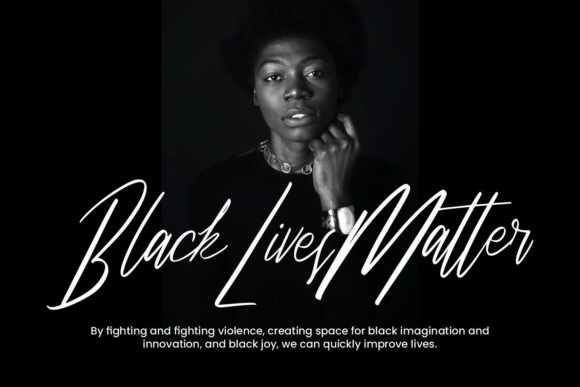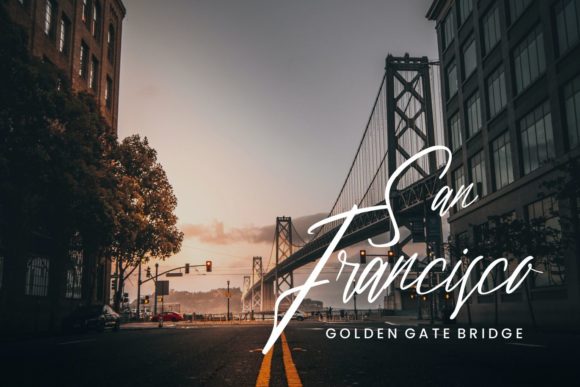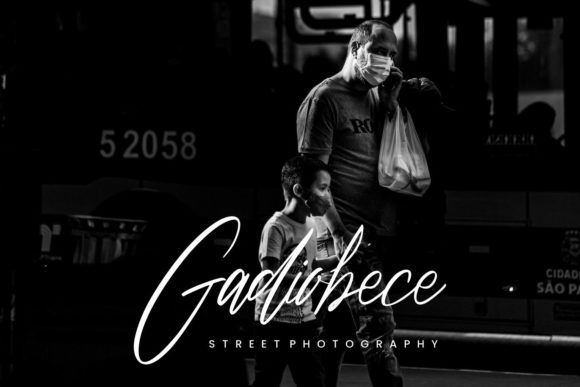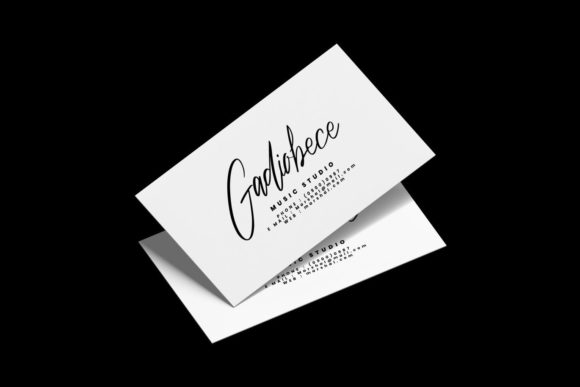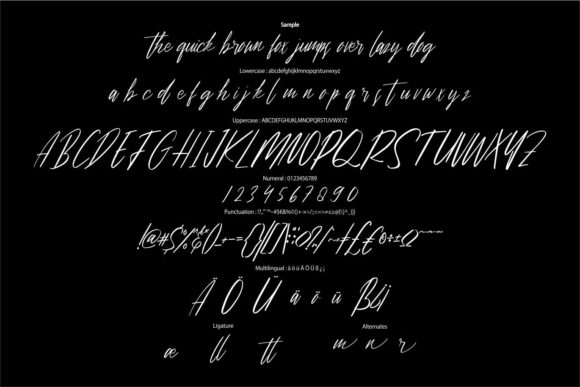
The Charm of Basattian Script Font: A Designer’s Delight
I’ll never forget the time I was working on a wedding invitation project, and my client asked for a font that was “elegant, yet playful.” I scoured the internet, tried out dozens of fonts, but nothing seemed quite right. That was until I stumbled upon Basattian Script Font. ✨ It was love at first sight! The flowing curves, the whimsical flourishes – it was exactly what I needed to bring my design to life.
- ✨ Elegant and charming, perfect for wedding invitations, thank you cards, and quotes
- ✅ Highly versatile, suitable for logos, business cards, and more
- 💫 Beautiful handwritten touch, adds a personal feel to any design
- 🎨 Works well with a variety of design styles, from modern to vintage
While Basattian Script Font is a stunning addition to any design, there are a few things to keep in mind:
- ⚠️ May not be suitable for body text, as it’s a script font and can be difficult to read in large blocks
- 🤔 Some characters may not be suitable for use in titles or headings, due to their design
The Story Behind Basattian Script Font
Basattian Script Font was designed with the intention of creating a beautiful, elegant script font that would add a personal touch to any design. The designer wanted to create a font that was both charming and sophisticated, with a unique feel that would set it apart from other script fonts.
| Font Name | Basattian Script Font |
| Author | FannanStudio |
| What is Basattian Script Font best used for? | Basattian Script Font is best used for designs that require a elegant, handwritten touch, such as wedding invitations, thank you cards, and quotes. |
| Is Basattian Script Font suitable for body text? | No, Basattian Script Font is not suitable for body text, as it’s a script font and can be difficult to read in large blocks. |